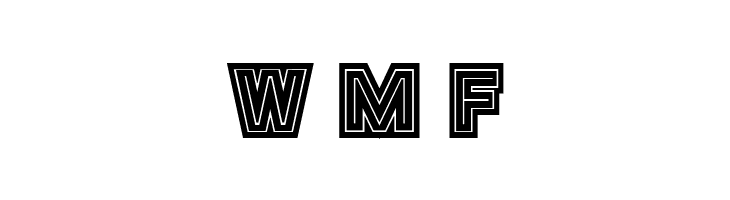
( Fonts by www.DigitalDreamDesign.net )
A bold, outlined font with a geometric and modern style.
( Fonts by Rob Dobi - Toxic Type - www.dobi.nu )
A distressed, grunge-style font with a textured, weathered appearance.
( Fonts by Mr Fisk - Mike Larsson - fontorama.net )
A distressed, grungy font with a bold, textured appearance.
( Fonts by www.fontalicious.com )
A modern, geometric sans-serif font with clean lines and a bold, minimalistic design.
( Fonts by Buddha Graphix - buddha.graphix.dk/fonts.html )
A playful and whimsical font with irregular letterforms and exaggerated serifs.
( Fonts by www.aenigmafonts.com )
A decorative font with swirling patterns inside each character, offering a bold and artistic look.
( Fonts by Levi Halmos )
A futuristic font with smooth, rounded edges and a modern aesthetic.
( Fonts by Graham Meade - GemFonts )
A bold, thorny font with sharp, jagged edges for a dynamic and intense look.
( Fonts by Jacob Fisher - www.pizzadude.dk )
A bold, distressed font with a gritty, hand-drawn appearance.
( Fonts by Graham Meade - GemFonts )
A modern, oblique font with consistent stroke thickness and a sleek, dynamic appearance.
( Fonts by Altsys Metamorphosis )
A geometric and decorative font with a modern, artistic flair.
( Fonts by Dieter Schumacher )
A modern, sleek font with elongated, narrow characters and a minimalistic style.
A modern, condensed font with tall, narrow characters and a sleek appearance.
A rugged, distressed stencil font with a bold, industrial look.
( Fonts by www.fontalicious.com )
A bold, geometric, and decorative typeface with a modern, futuristic look.
( Fonts by Graham Meade - GemFonts )
A bold, geometric font with sharp, angular letterforms.
( Fonts by Omega Font Labs )
A bold, jagged font with sharp edges and a dynamic, energetic style.
( Fonts by www.tepidmonkey.net )
A geometric, modern font with clean lines and a structured appearance.
( Fonts by dartcanada.tripod.com - Darren Rigby )
A modern, geometric font with a sleek, condensed design.